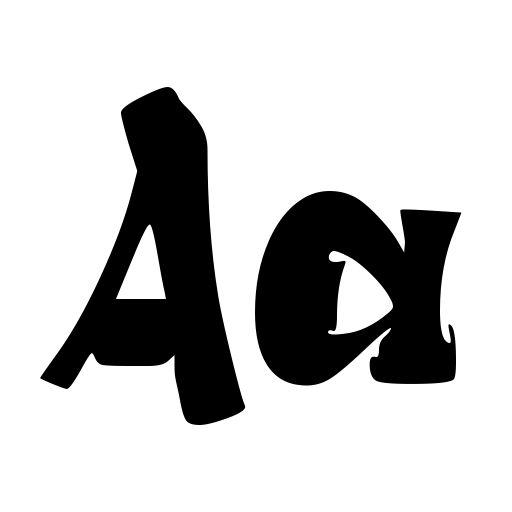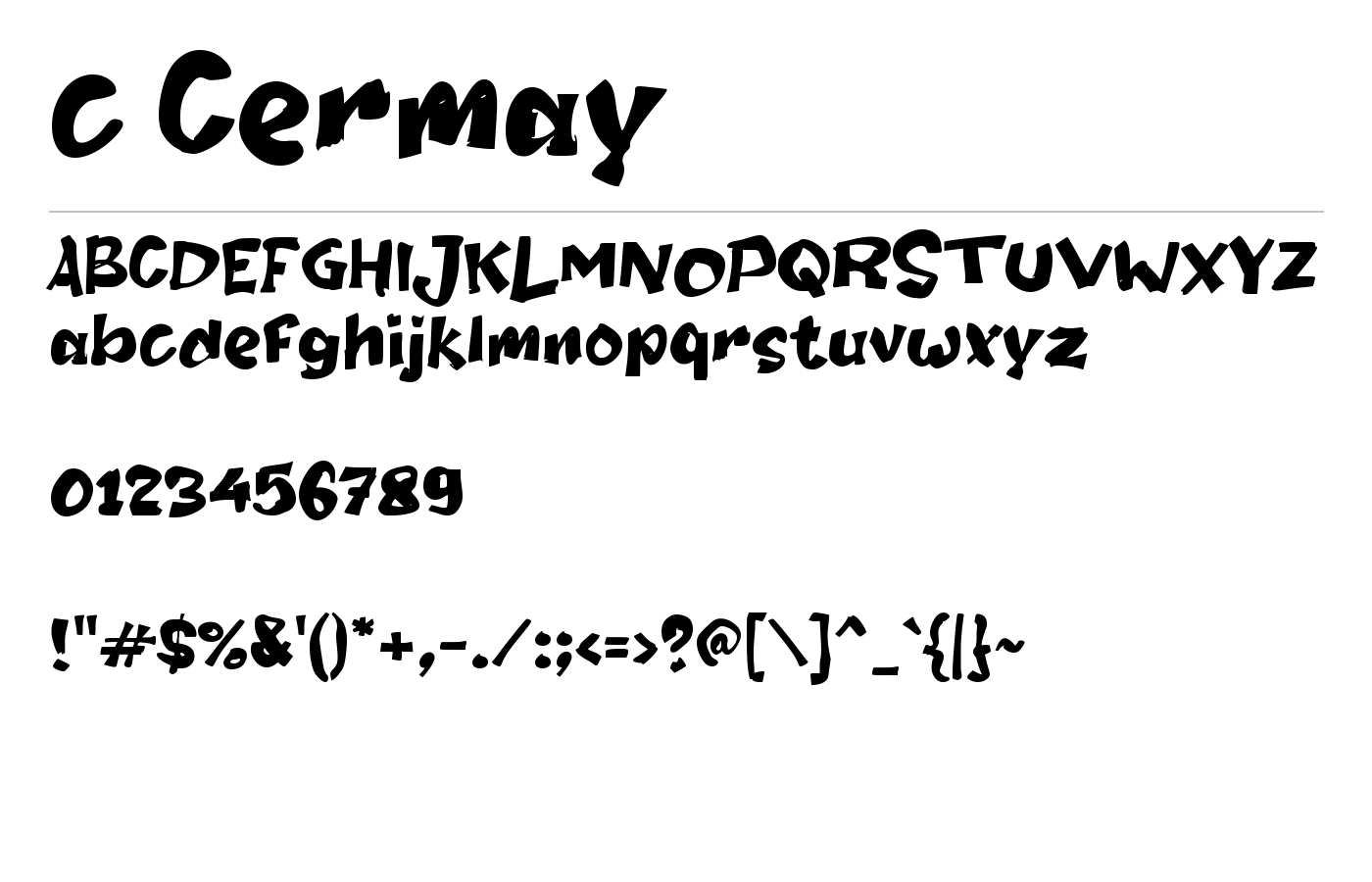
Cermay is a lively and bold handwritten-style font with playful, irregular shapes that give it a casual, friendly character. Its chunky, brush-like strokes and slightly condensed proportions make it stand out, perfect for creative projects needing an informal, energetic touch. This font works great for eye-catching headlines, posters, and branding that aims to convey approachability and youthful spirit.
c Cermay Font
About c Cermay Font